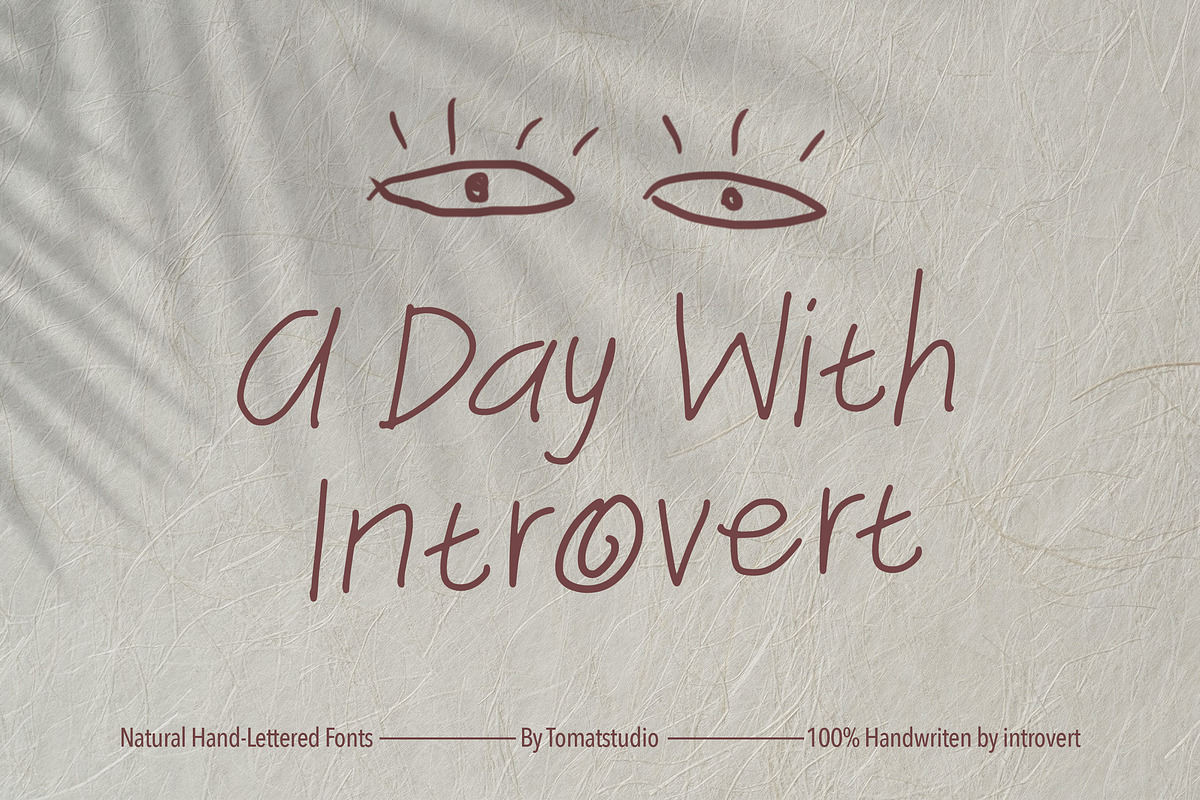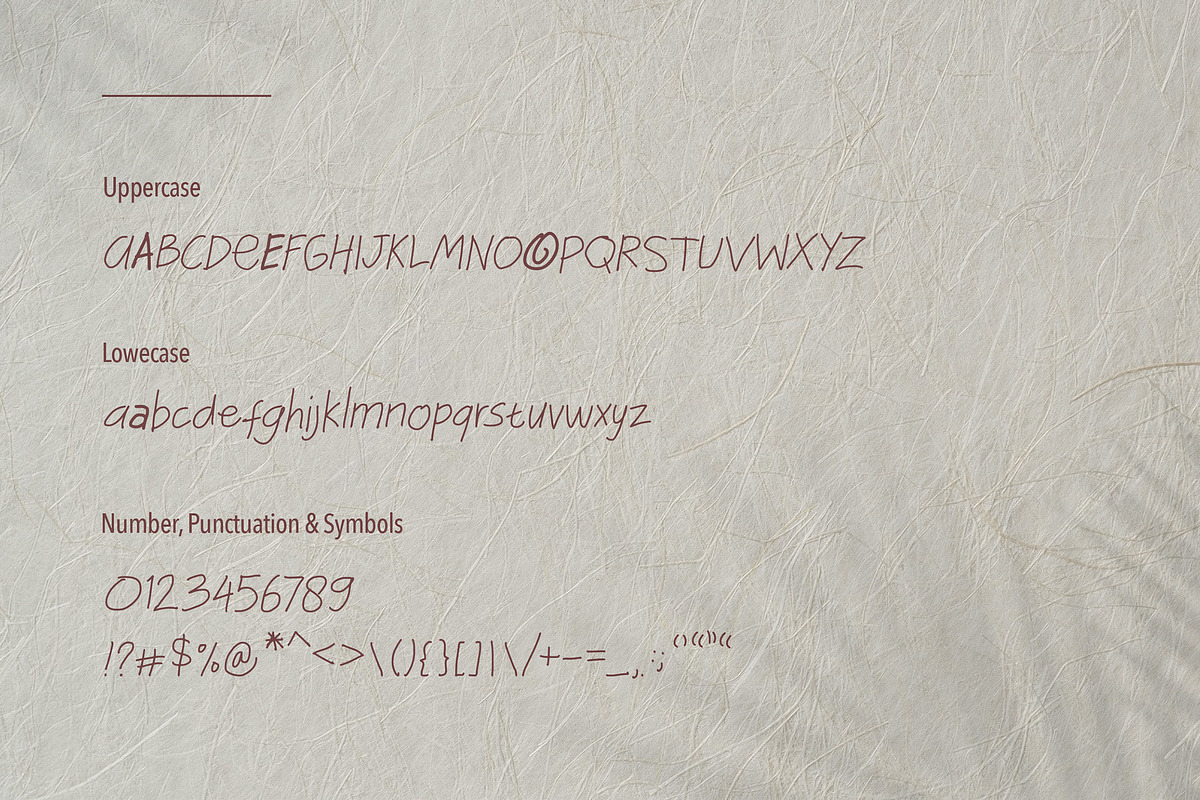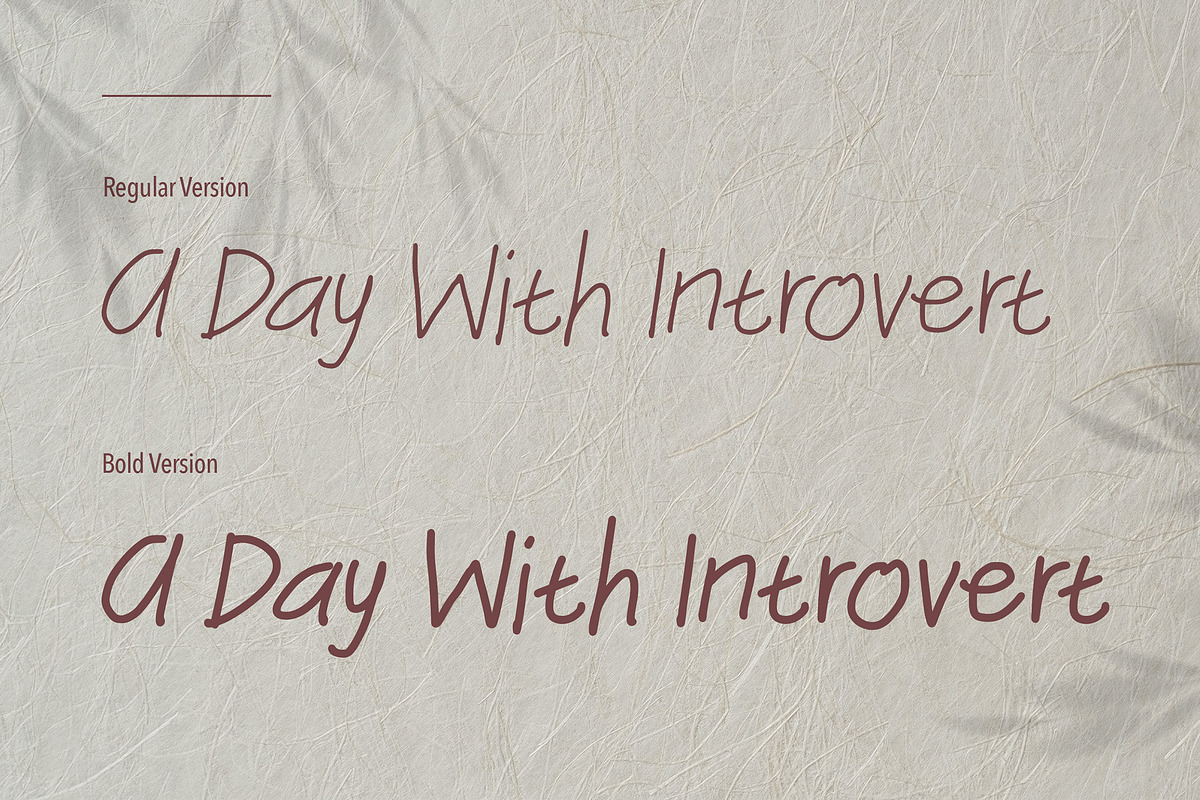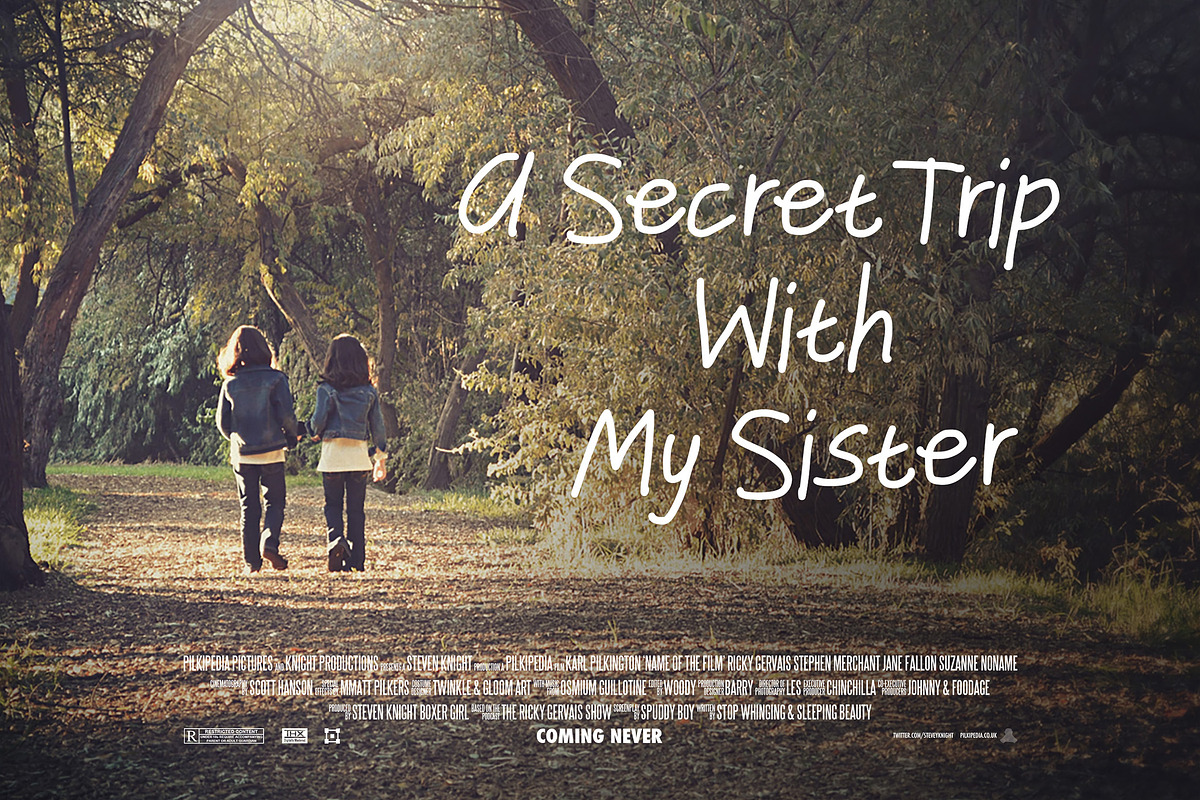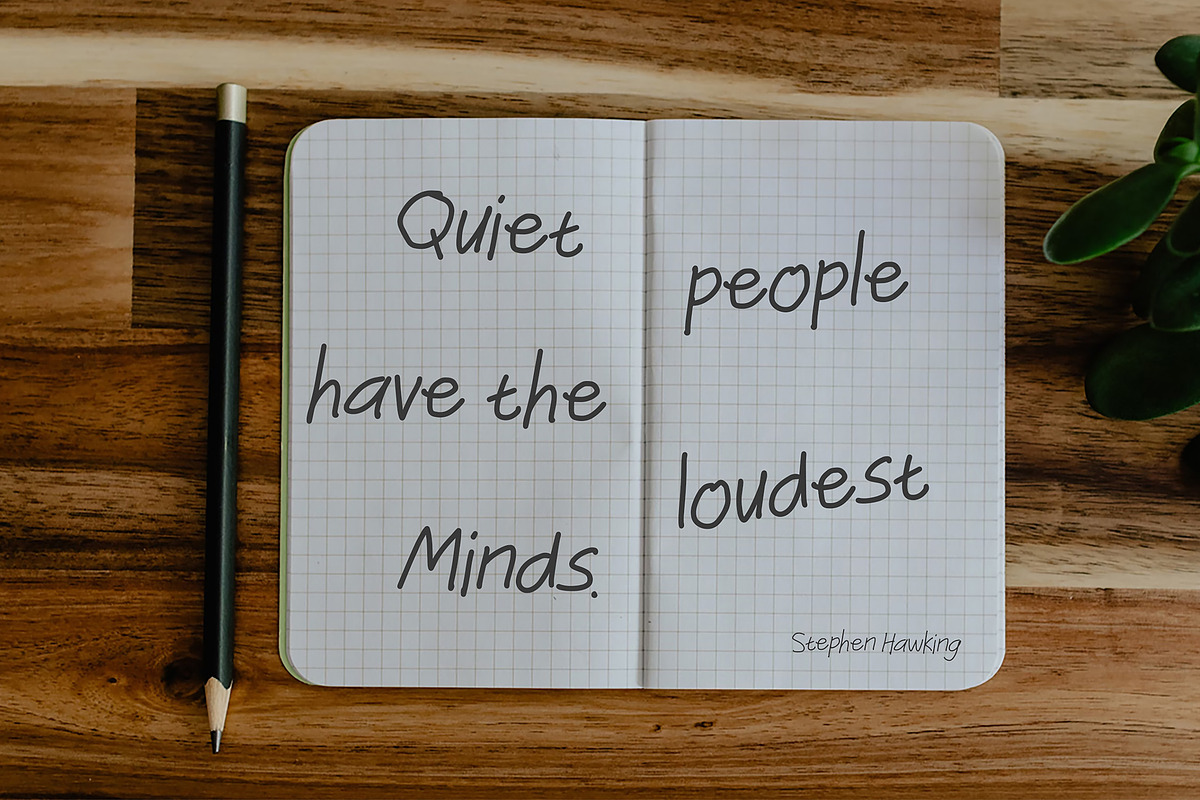
Handwritten font A day with introvet
Created 100% with handwriting with Wacom by introverts, make it genuinely made by human, and natural handwriting looks. The "A" and "E" letter we create look alike lowercase to make it more introvert style. This fonts perfect for any type of design!